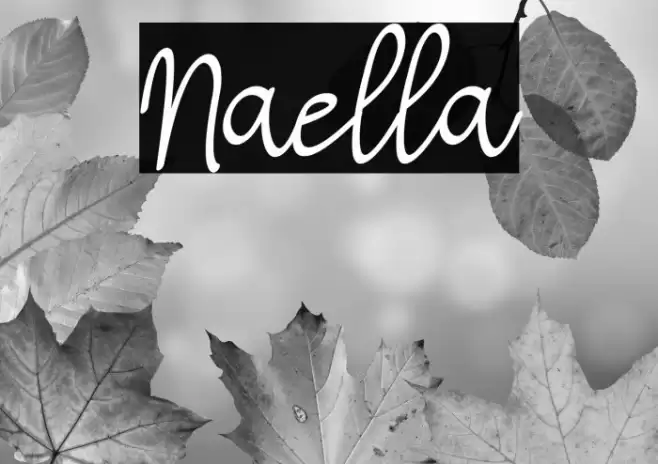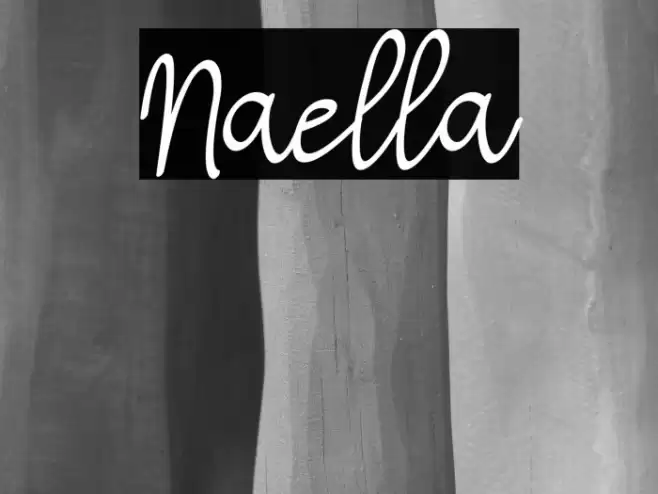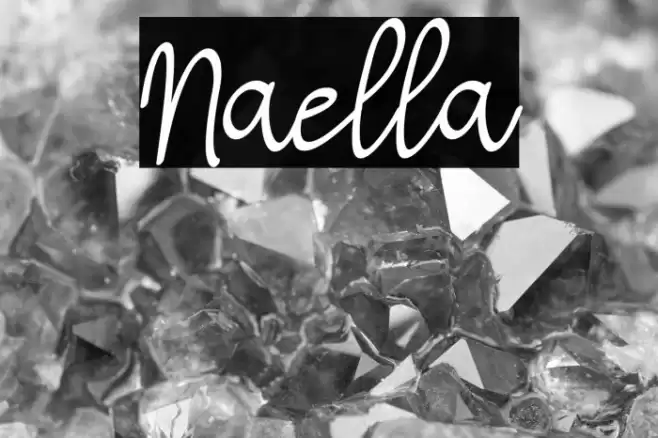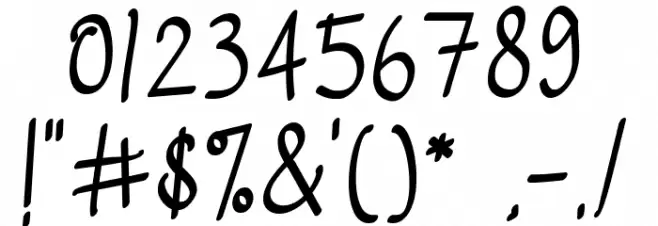
Naella Font
Naella Description
This font features a playful and casual handwritten style, characterized by its fluid and connected letterforms. The uppercase letters are tall and slightly narrow, while the lowercase letters exhibit a more rounded and flowing appearance. The numbers maintain the same playful aesthetic, with a consistent stroke width throughout. Special characters are integrated seamlessly, adding to the font's versatility. The overall look is informal and friendly, making it suitable for creative projects that require a personal touch.
A playful, casual handwritten font with fluid, connected letterforms from Regular fonts.
- Proposed Projects: Ideal for greeting cards, invitations, personal branding, and creative social media graphics.
- Overall Style: Casual, Playful
- Use Case: Logos, Headlines, Invitations